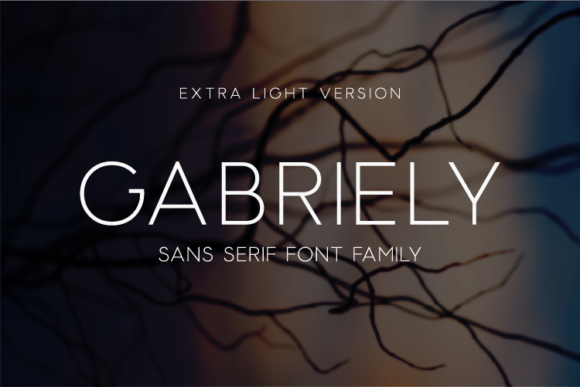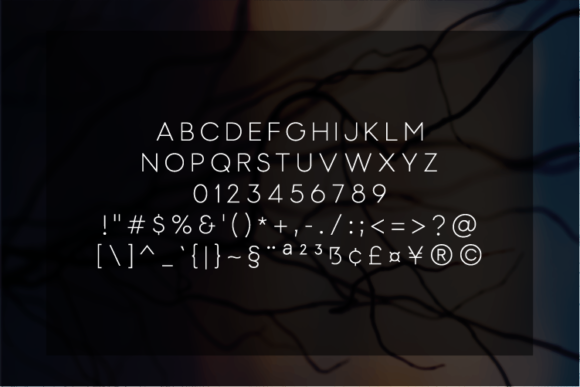
Gabriely Extra Light Font
About Gabriely Extra Light Font
Gabriely is a clean, modern sans serif typeface that has been passionately designed with great attention to detail. An essential font and a great asset to own, Gabriely will give any project a simplistic and timeless look.